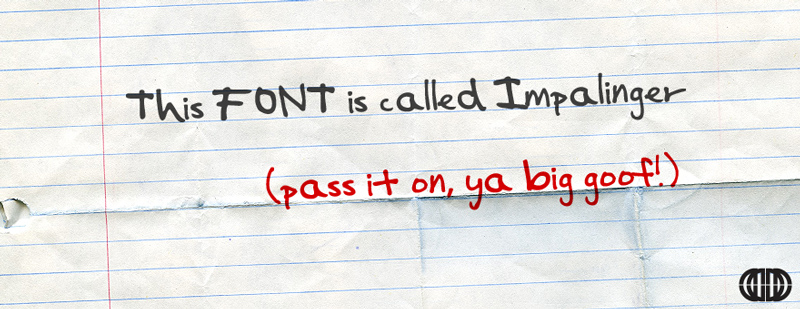
You want a hand written font that looks legit, has character, and looks like it came right off of your 3rd grade bathroom wall? ...And it's free? This font is so you. For even more fun, use it with some Illustrator jitter effects. Big thanks to my little sister for letting me sample her handwriting! http://michaelmuranaka.com/impalinger/ ----------------------- This font is FREE! If you have any questions, please see the font licensing agreement: http://michaelmuranaka.com/font-licensing-agreement/ ----------------------- Check out my new Font Blog to stay up to see when I release new fonts! http://michaelmuranaka.com/category/fonts/ ----------------------- This is ABSOLUTELY FREE to do with whatever you wish, personal or commercial. Just don't claim ownership, sell it, redistribute it, or be a jerk with it. Please DO NOT download this font and redistribute it on another website!!! If you make use of this font, it might be cool if you either credit MuraKnockout Media or Michael Muranaka, or show me how you used it! Enjoy! |